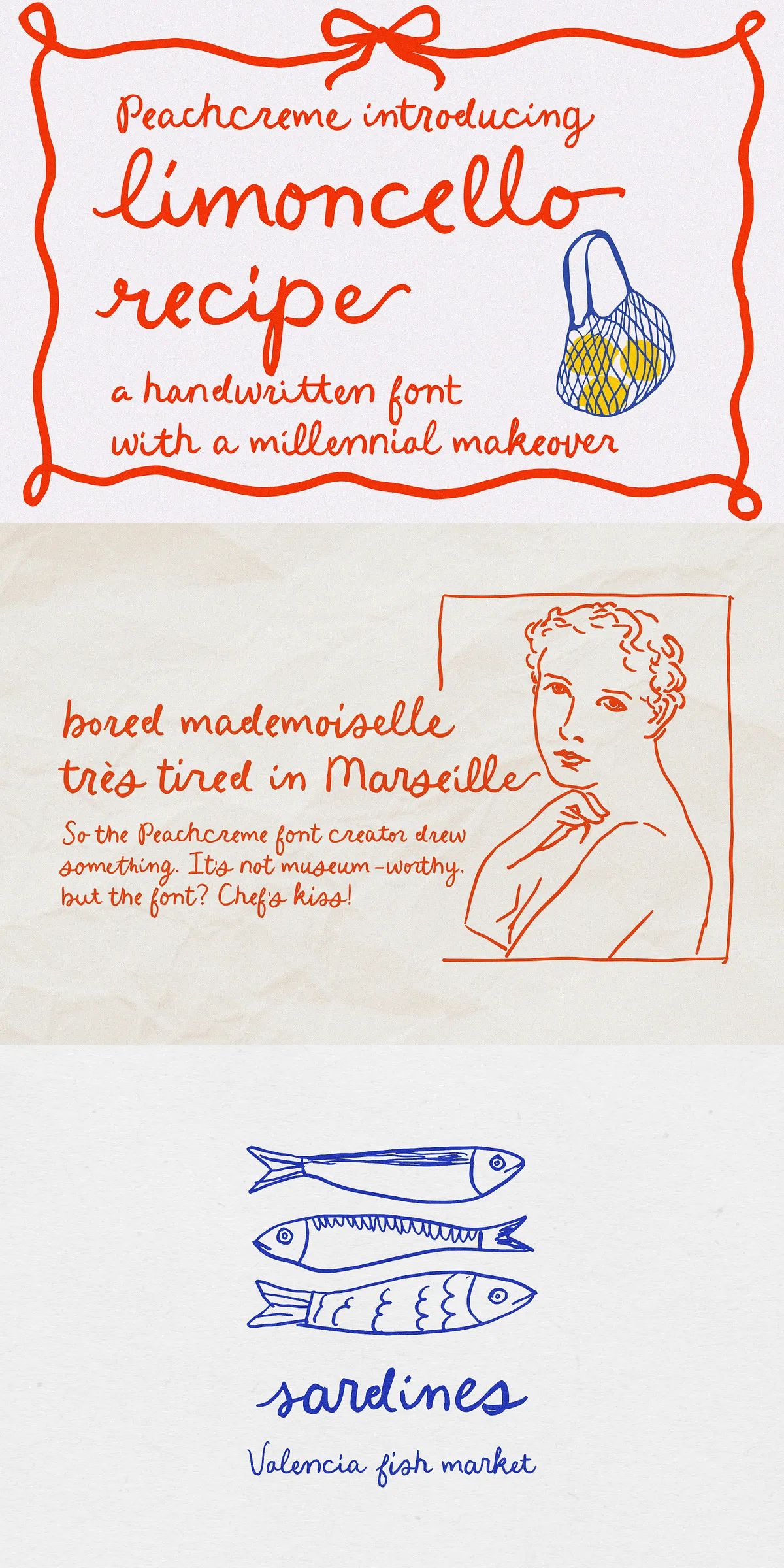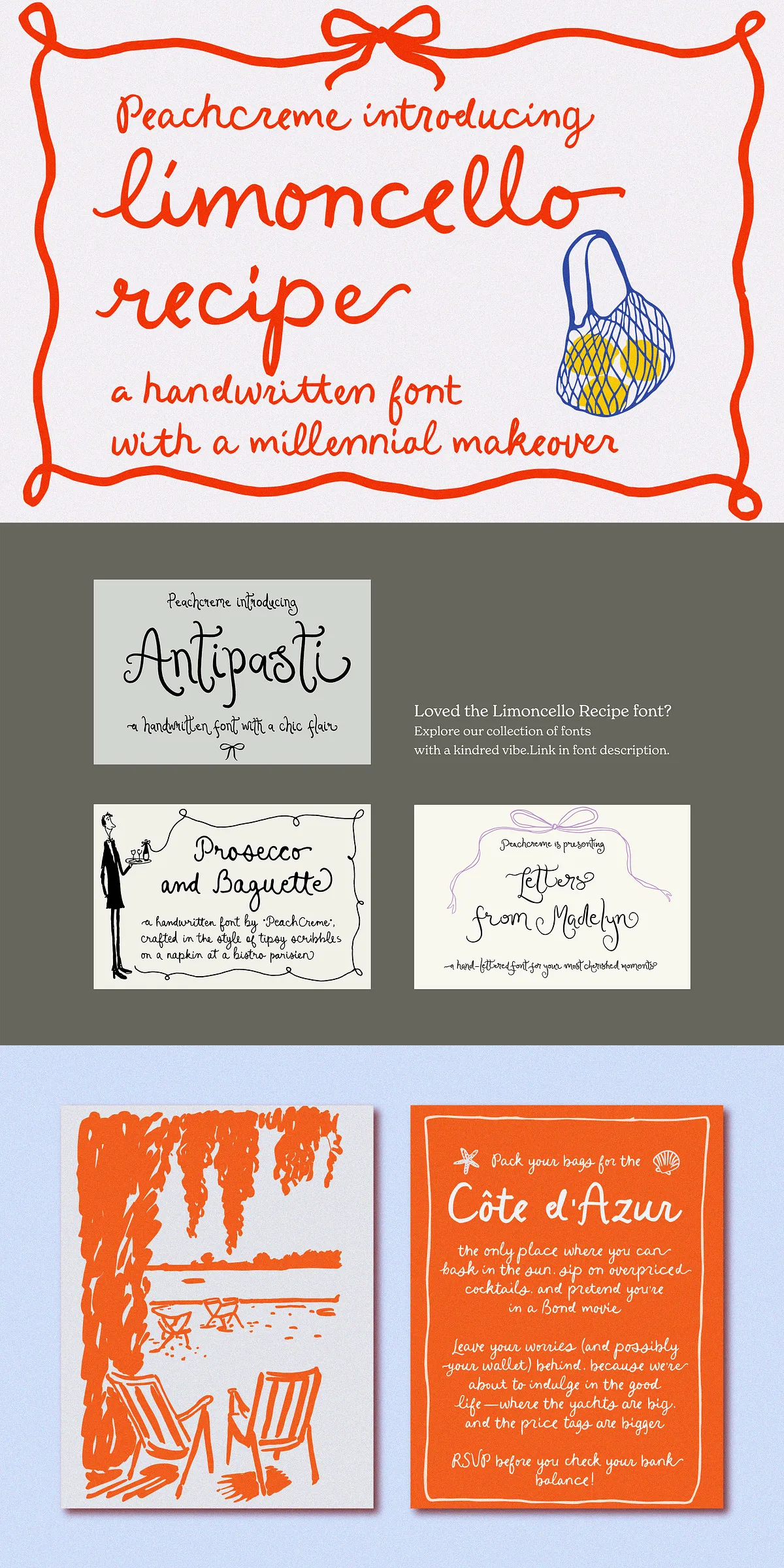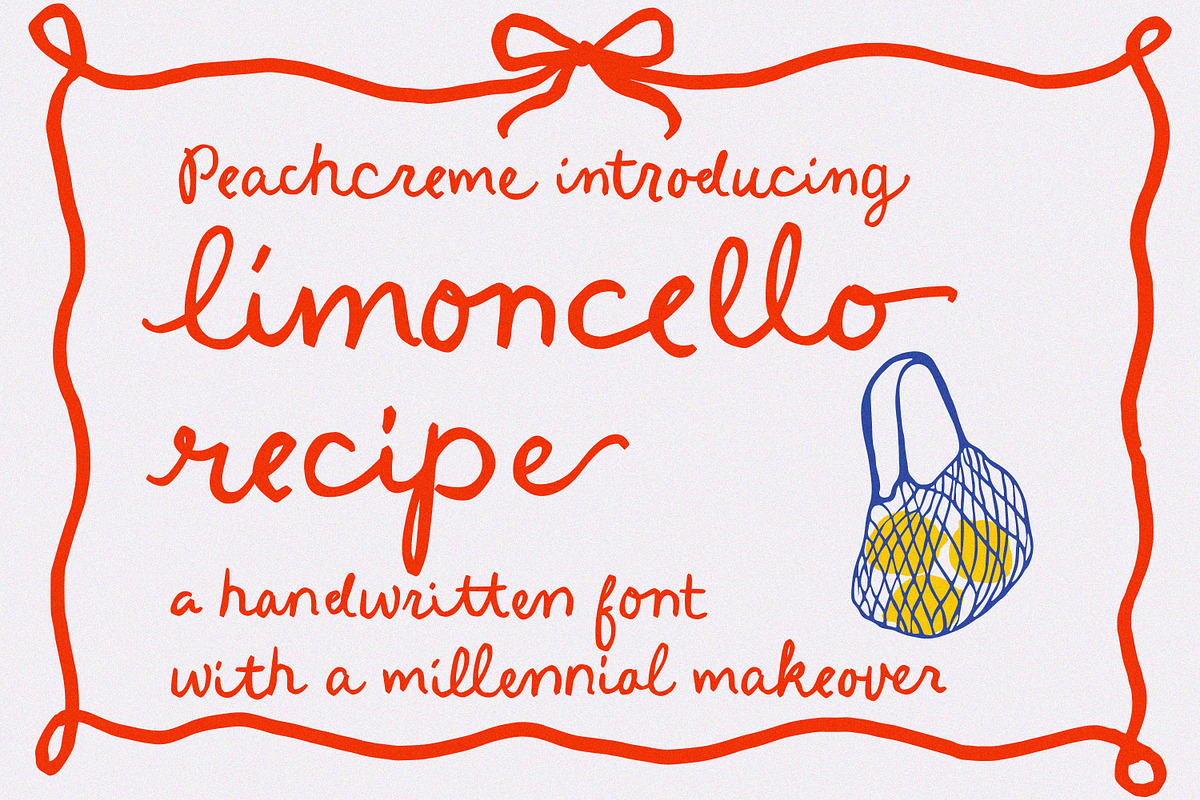
The Limoncello Recipe font masterfully captures the warmth and imperfect beauty of genuine handwriting, making every project infused with a personal, inviting character. Inspired by the casual, human touch of handwritten notes from a cherished family cookbook, this font features delightfully uneven strokes and an unrefined style that breathes life into your designs. Its unique personality instantly conveys approachability and a sense of heartfelt craftsmanship that modern digital fonts often lack.
Authentic Handwritten Feel with Abundant Ligatures
Designed with natural handwriting flow in mind, Limoncello Recipe includes 84 standard ligatures that mimic the organic connections seen in casual script. These ligatures contribute to the font’s authenticity, enabling your text to flow seamlessly and look as though it were penned by hand. The result is typography that feels alive and spontaneous, with each letter link adding richness and depth to your visual storytelling.
Expressive Swashes That Add Playful Personality
Adding to the font’s versatility is an exceptional collection of beginning and ending swashes. These decorative flourishes allow you to introduce a laid-back yet elegant flair to headings, logos, event invitations, or packaging. The swashes mirror the joyful spontaneity of scribbles found in the margins of treasured family recipes, providing you with playful options to customize your designs while maintaining an effortless, handcrafted vibe.
Ideal for Rustic, Whimsical, and Personal Design Projects
Limoncello Recipe shines brightest in designs that demand a touch of rustic charm paired with a carefree character. Whether you’re crafting a quirky brand identity, designing invitations for intimate events, or creating packaging that celebrates artisanal craftsmanship, this font brings an approachable warmth. Its imperfect strokes remind viewers that beauty lies within uniqueness and imperfection, making your projects resonate emotionally.
Why Choose Limoncello Recipe for Your Typography Needs?
Limoncello Recipe is more than just a handwritten font; it is an expression of authenticity that elevates the personal and intimate nature of your design. Moving beyond polished, mechanical typefaces, it celebrates the human imperfection that makes handwriting so engaging and memorable. The balanced combination of uneven strokes, natural ligatures, and expressive swashes provides a rich toolkit for designers looking to connect emotionally with their audience.
This font is perfectly suited for projects that benefit from storytelling through typography — including boutique branding, creative invitations, artisanal product labeling, and editorial layouts that favor warmth over sterility. When unpredictability and charm define your aesthetic, Limoncello Recipe delivers with elegance and personality.